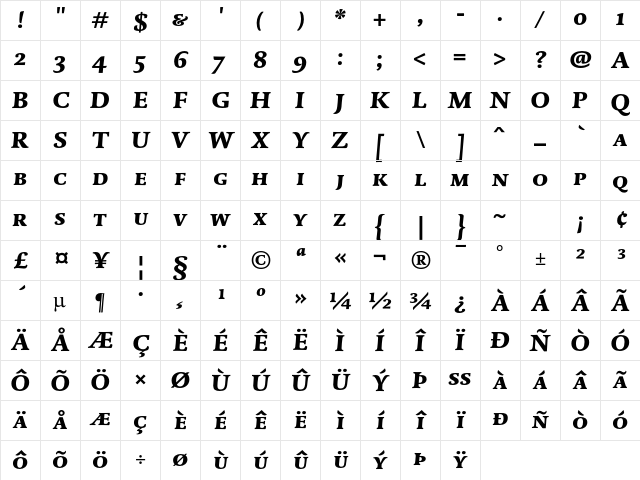
DTL Dorian T Caps Black Italic
Style: T Caps Black Italic
Design Context for DTL Dorian
DTL Dorian is a composed and adaptable typeface that performs quietly and consistently across a wide range of design contexts. The slanted form adds forward momentum and visual energy.
Pro Tip: Use DTL Dorian for emphasis, pull quotes, and subheadings where its slanted energy can add rhythm to the layout.